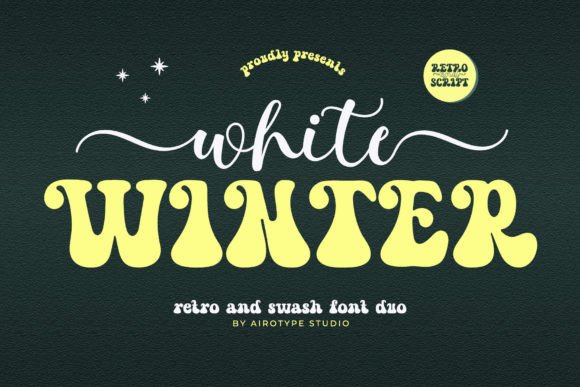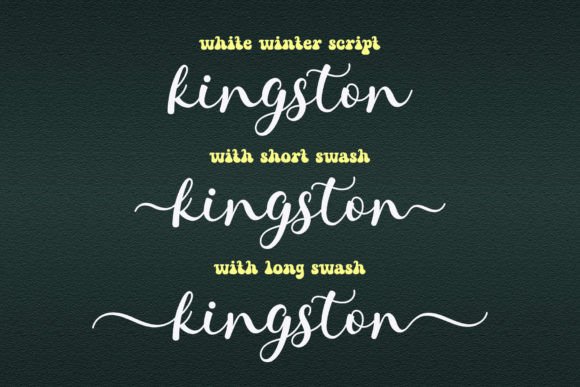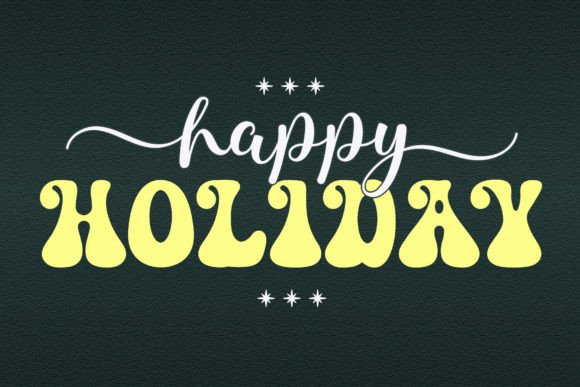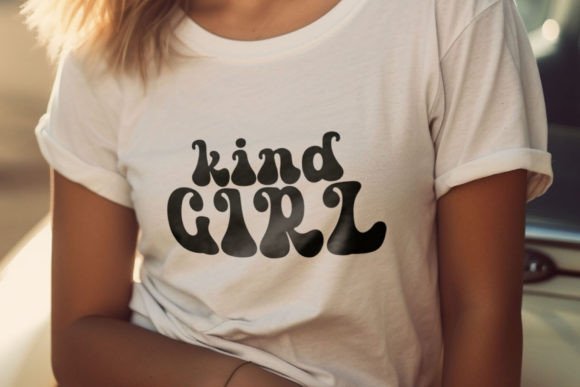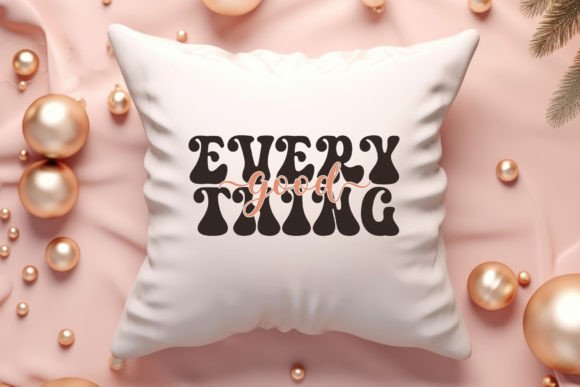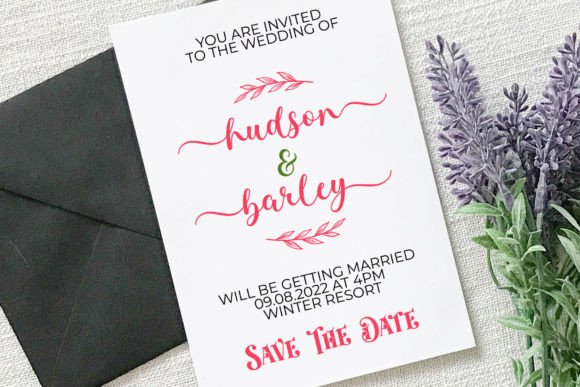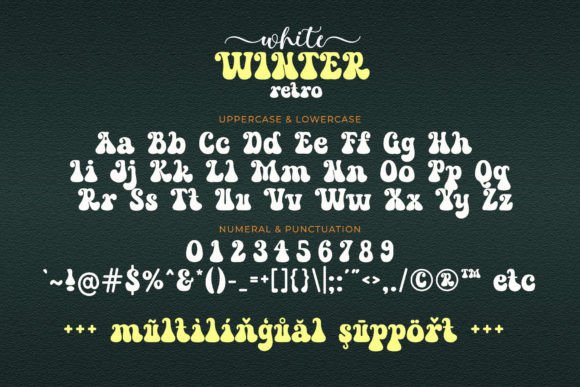
White Winter Font
White Winter is a modern and elegant font duo. The first font is a bold retro font with elegant and vintage vibes. The second one is a tiny and chic script font with a tail swash for its lowercase.
This font duo can be used as a pair font or individual.
This retro and script font can be used for any project, especially with vintage style, such as logo, crafting, branding, t-shirts, stickers, sublimation, quotes, weddings, invitations, and many more.